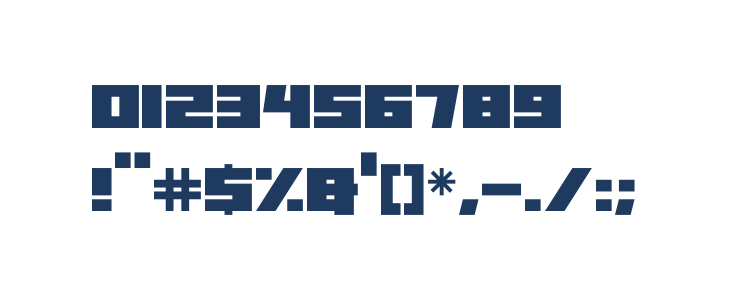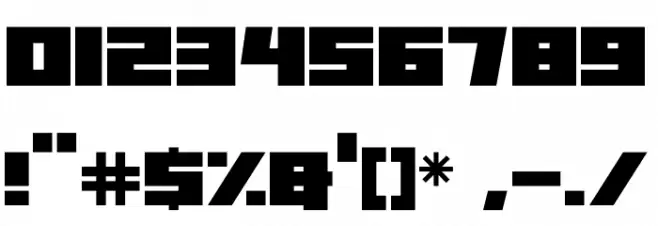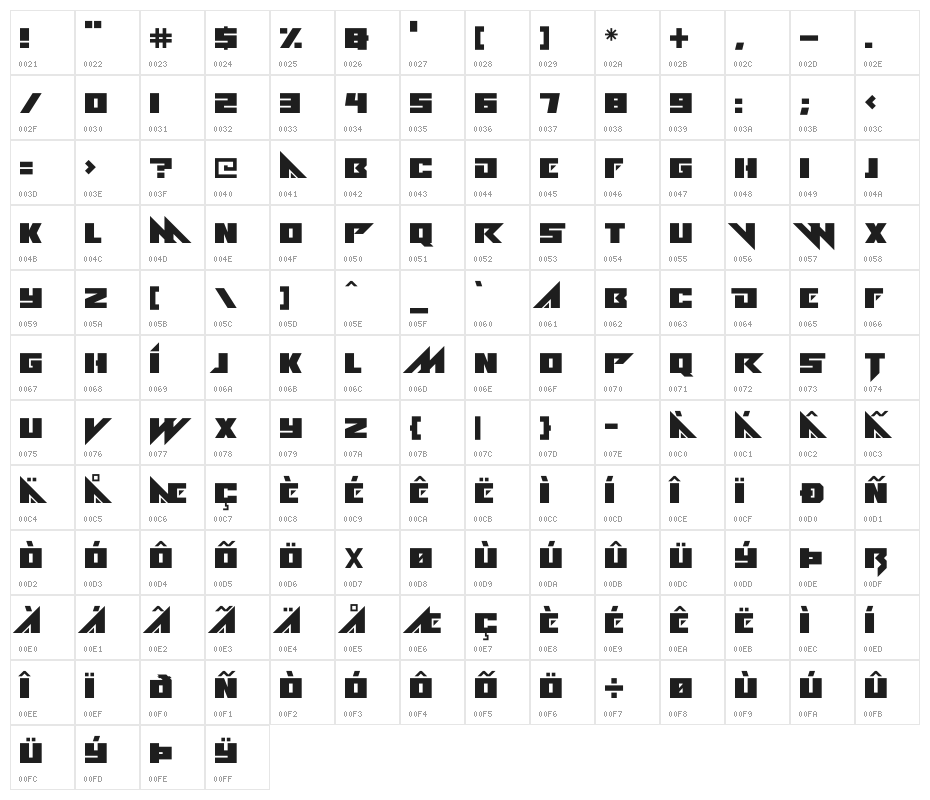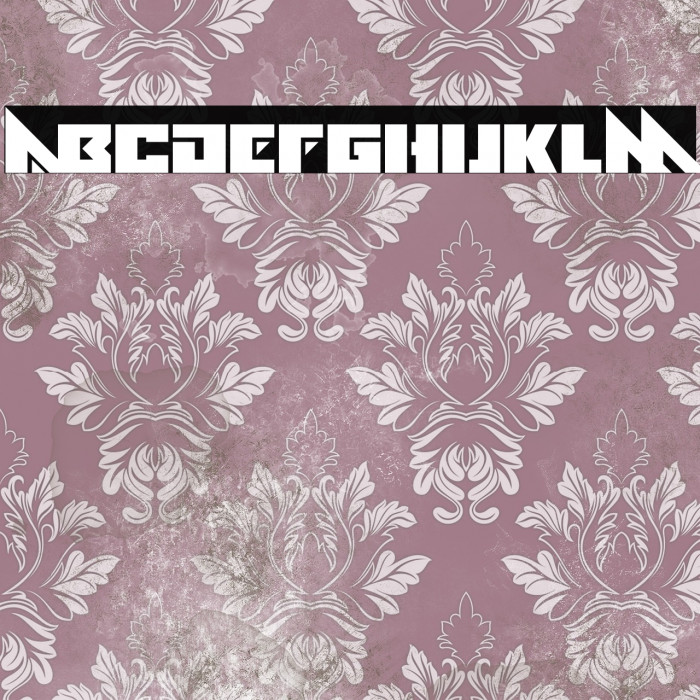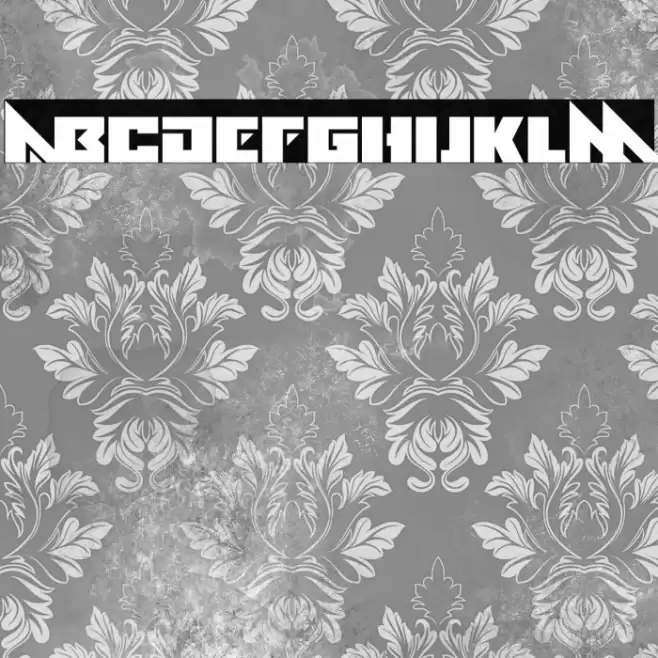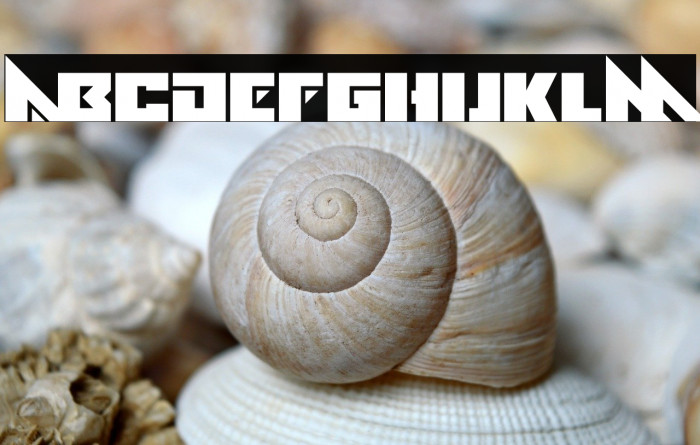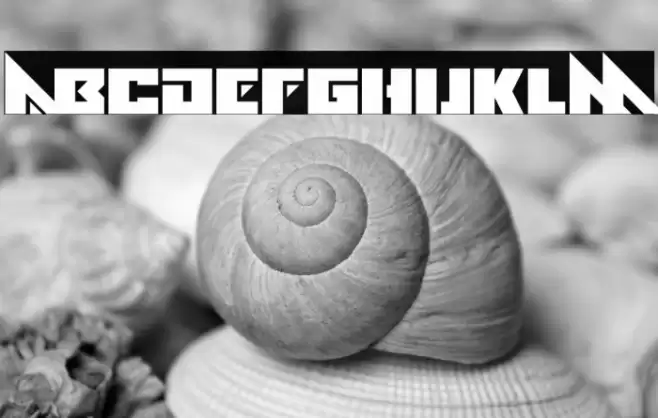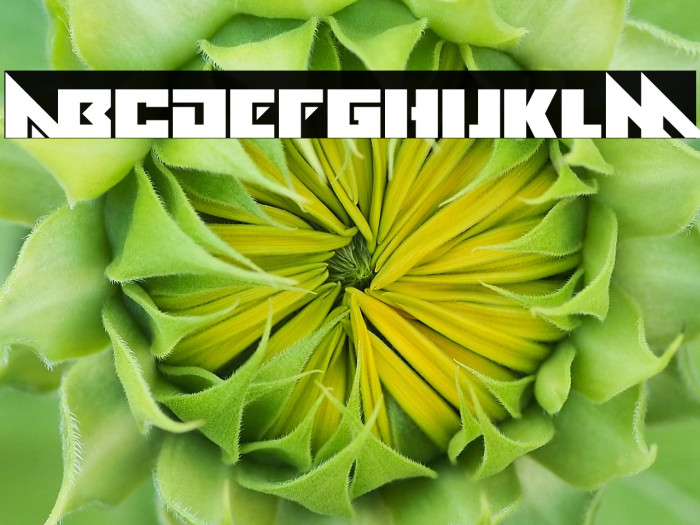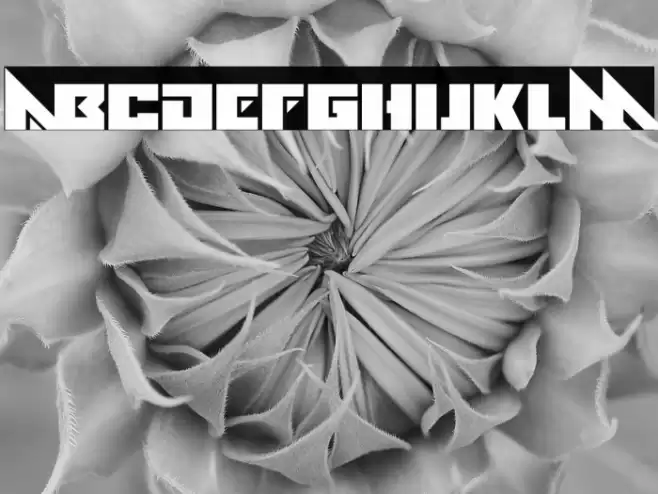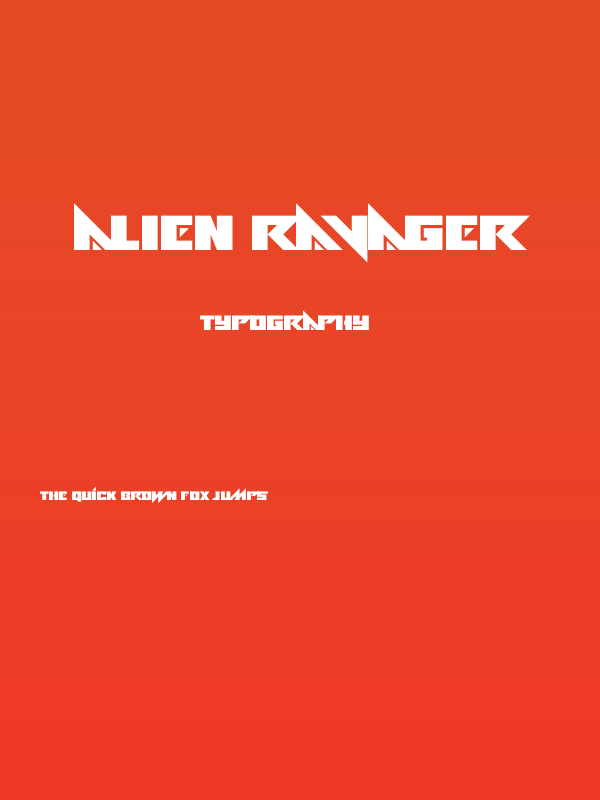
Alien Ravager Font
Alien Ravager Description
This font features a bold, angular design with sharp, geometric edges that convey a futuristic and aggressive aesthetic. The characters are heavily stylized, with a strong emphasis on diagonal lines and pointed corners, creating a sense of movement and energy. The uppercase and lowercase letters share a consistent style, maintaining the font's distinctive look across all characters. Numbers and special characters are equally bold and angular, ensuring a cohesive appearance throughout. The font's unique design makes it stand out, ideal for projects that require a modern and edgy feel.
Overall StyleFuturistic, Aggressive
Proposed ProjectsIdeal for sci-fi themed projects, video game titles, movie posters, and branding that requires a modern and edgy look.